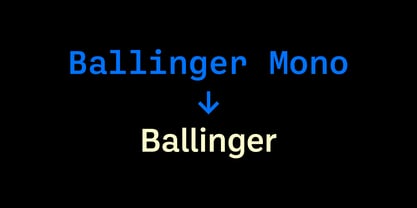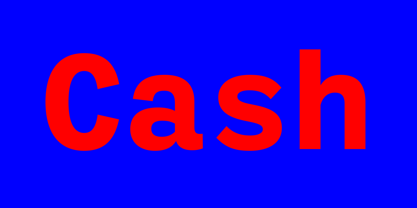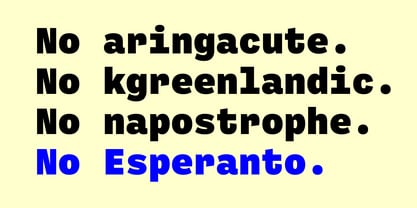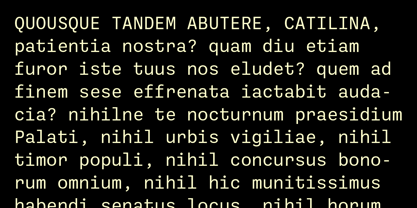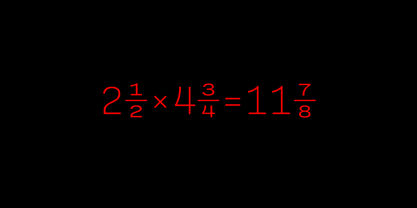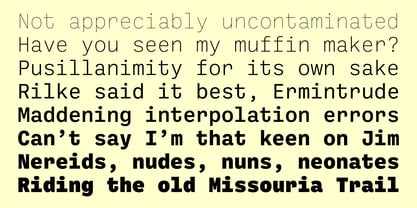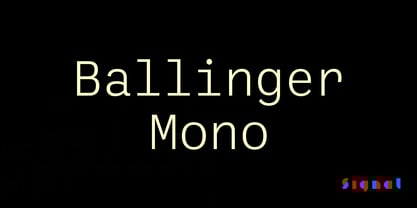
Ballinger Mono™
The Ballinger Mono Font Family was designed by Max Phillips and published by Signal Type Foundry. Ballinger Mono contains 8 styles and family package options. More about this family
The addition of a monospaced version returns the Ballinger family to (some of) its roots: a 70s-era typewriter face called Candia, which Josef Müller-Brockmann designed for Olivetti. Ballinger Mono is designed on the same principles as its sister face: plain, sturdy forms with large counters, open apertures, deep junctures, and a generous x-height. It matches Ballinger’s eight weights, which makes it unusually versatile for a fixed-width face, and has been carefully rebalanced for ease of reading, like the classic jobbing sanses that inspired it. Oldstyle, inferior, and superior figures are available, as well as old-fashioned nut fractions.